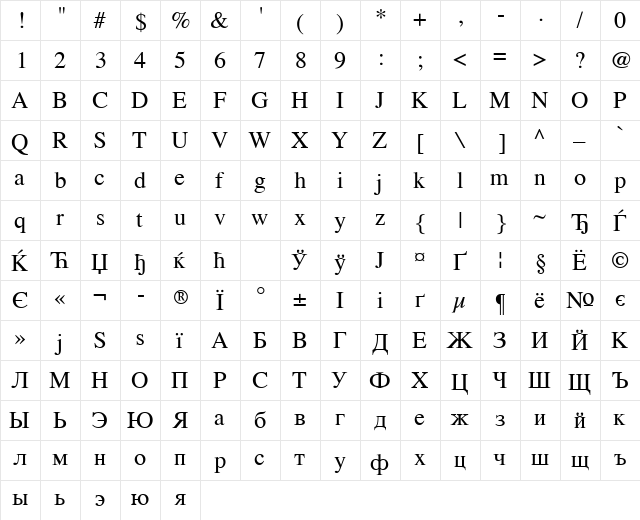
Vremya Regular
Design Context for Vremya Typeface
Vremya takes a measured approach to typography — its balanced proportions and neutral character make it a reliable workhorse for both digital and print work.
Pro Tip: Use Vremya in both headline and body roles to test its range before committing to a single application.